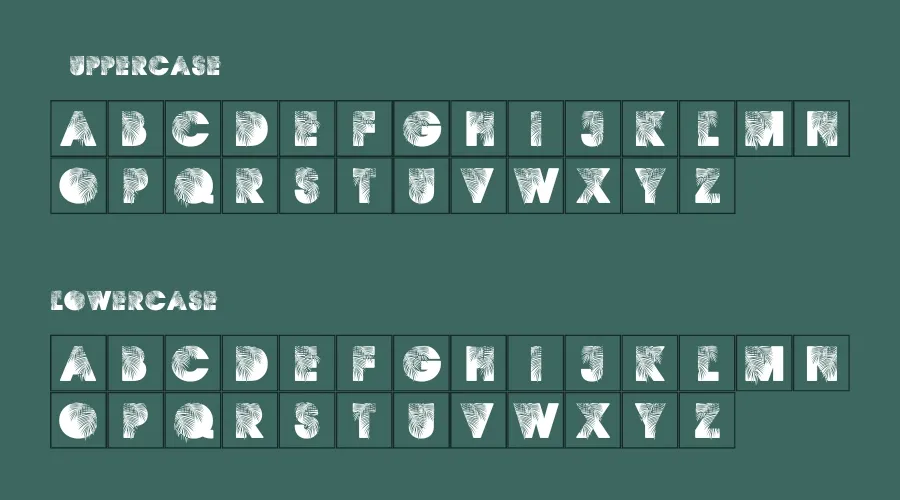
About Palm Springs Font
The Palm Springs Font is an attractive typeface that belongs to the decorative texture family. This font was invented by a well-known typographic developer named Billy Argel Fonts, and you may get it free from here. It has both file formats OTF and TTF.
This special texture has multiple types of weights like bold, italic, and regular. It has a unique character alphabet set, including capital and lowercase letters, symbols, punctuation, numbers, markings, indications, and many other eye-catching constructions.
The palm font has amazing pairing quality, and you can be paired this stunning font with Flame Font and make new designs. The online generator tool of the Plam Springs surface will help you to transform all your normal types of styles into stylish or modern shaps.